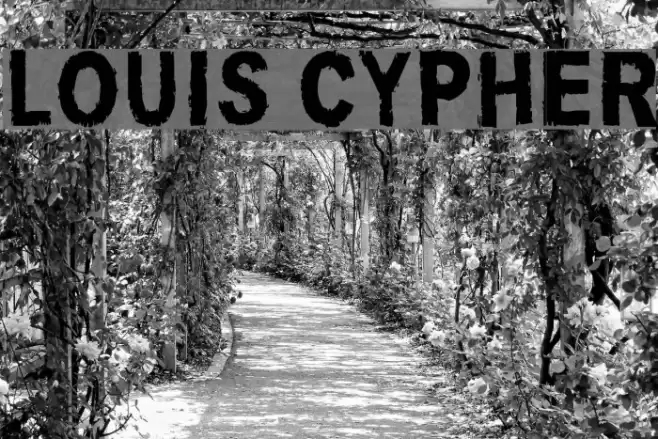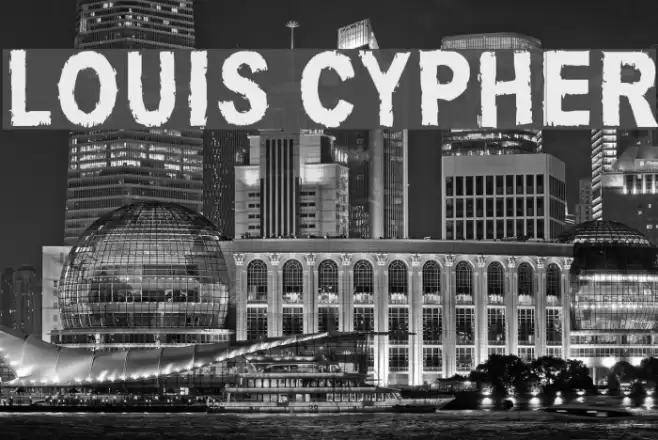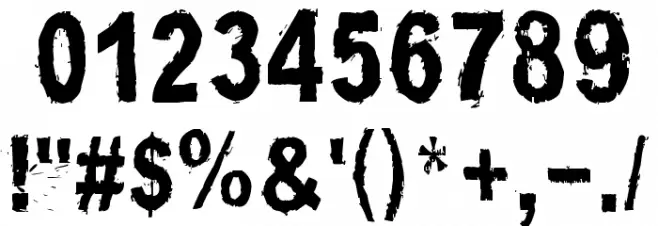
Louis Cypher Font
Louis Cypher Description
This font features a bold, distressed style with a rough, textured appearance that gives it a grunge or urban feel. The characters are uppercase and numerals, with each letter and number displaying a unique, worn-out look, as if they have been weathered over time. The strokes are thick and uneven, adding to the rugged aesthetic. This font is highly decorative and stands out due to its distinctive, edgy design. It is ideal for projects that require a bold statement or an artistic touch, such as posters, album covers, or branding for edgy or alternative products.
A bold, distressed font with a rough, textured, and grunge-like appearance from Uncategorized fonts.
- Proposed Projects: Ideal for posters, album covers, edgy branding, or any project needing a bold, artistic touch.
- Overall Style: Grunge, Urban, Edgy